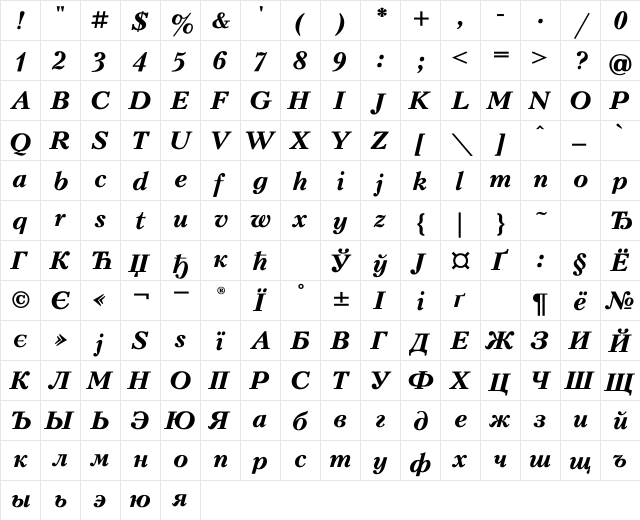
Kudriashov Bold Italic Font Preview
Kudriashov Bold Italic
Kudriashov Bold Italic Font Details
Design Context for Kudriashov Typeface
Kudriashov offers clean, dependable letterforms without strong stylistic allegiance, making it a practical choice for designers who need flexibility. The slanted form adds forward momentum and visual energy. The heavy weight commands attention and anchors typographic hierarchies.
Pro Tip: Use Kudriashov for emphasis, pull quotes, and subheadings where its slanted energy can add rhythm to the layout.